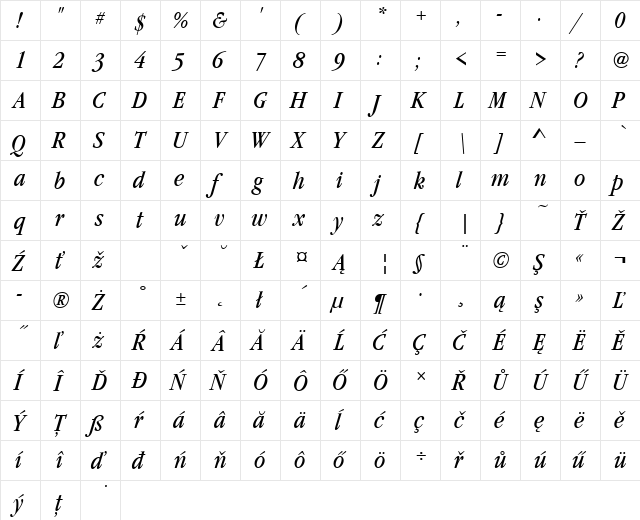
GaramondItcTEECon Italic
Design Context for GaramondItcTEECon Typeface
GaramondItcTEECon is a composed and adaptable typeface that performs quietly and consistently across a wide range of design contexts. The dynamic lean of this cut emphasises speed and emphasis in any layout.
Pro Tip: Try GaramondItcTEECon for annotation and caption copy alongside an upright companion — the contrast in angle creates a dynamic but ordered typographic system.